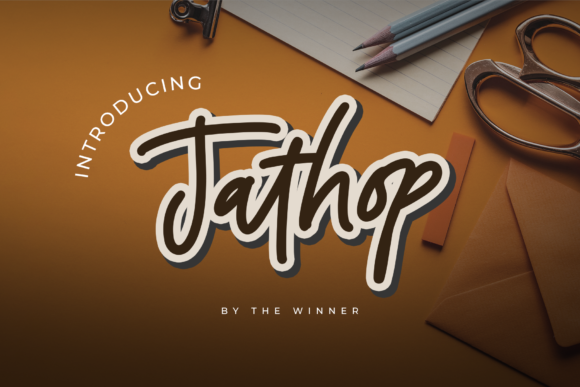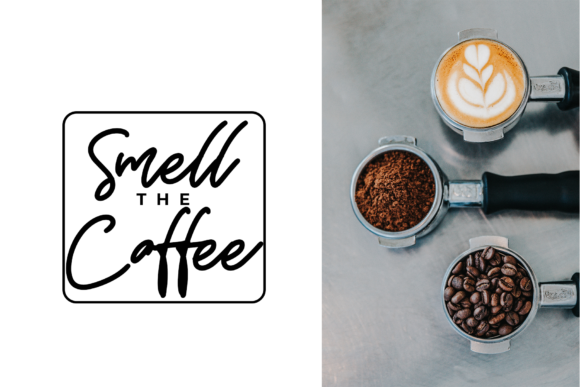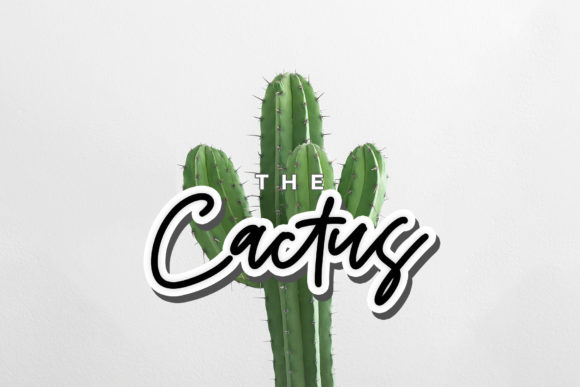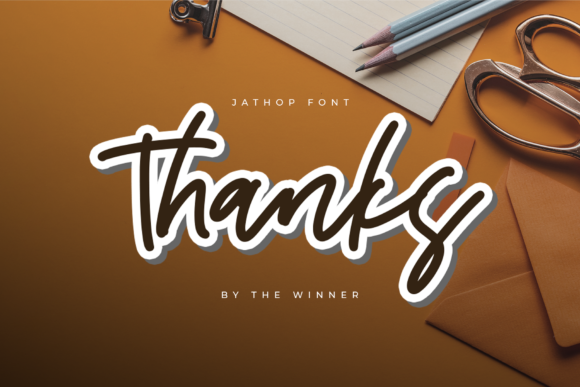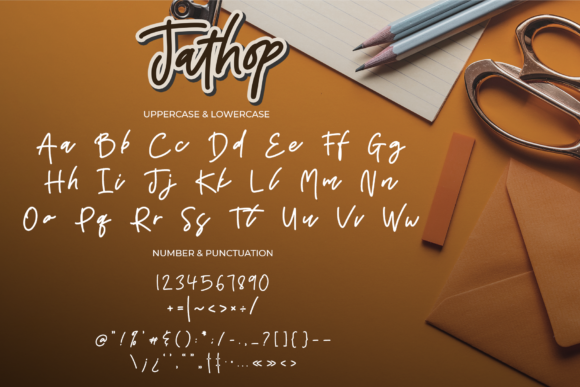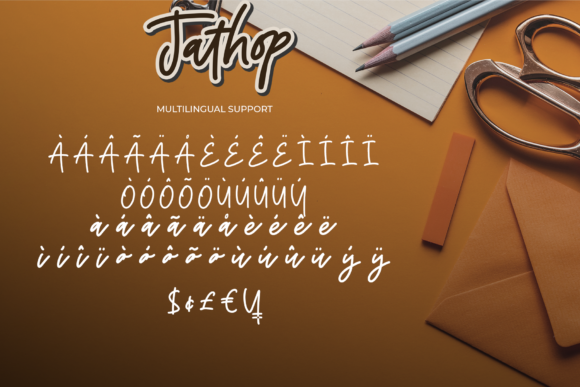
Jathop Font
About Jathop Font
Jathop is a casual and relaxed script font. It has a clean, thin and smooth vibe and it will be a hit for any design that you want to add it to.